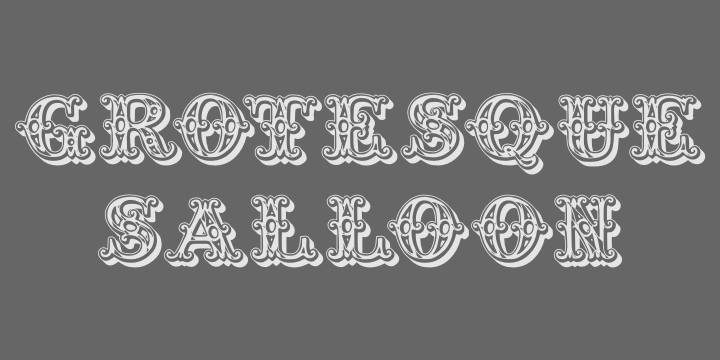
The Grotesque Salloon Font is perfect for vintage-inspired designs, western-themed projects, saloon signage, restaurant menus, craft beer labels, bourbon packaging, rustic wedding invitations, and retro advertising campaigns. This distinctive typeface brings authentic Old West charm to any design project.
What makes Grotesque Salloon Font so exciting is its unique blend of rugged character and refined craftsmanship. The font captures the spirit of the American frontier with its weathered appearance and bold personality, making it an ideal choice for designers seeking to evoke nostalgia and authenticity in their work.
The Grotesque Salloon Font family includes regular, bold, and italic variations, providing designers with versatile options to create compelling typographic hierarchies and dynamic layouts that maintain consistency across different design elements.
Whether you're working on branding projects, packaging design, or digital marketing materials, the Grotesque Salloon Font Free Download offers exceptional value for creative professionals. This remarkable typeface stands out in crowded marketplaces and helps establish memorable brand identities that resonate with audiences seeking genuine, character-driven design solutions.